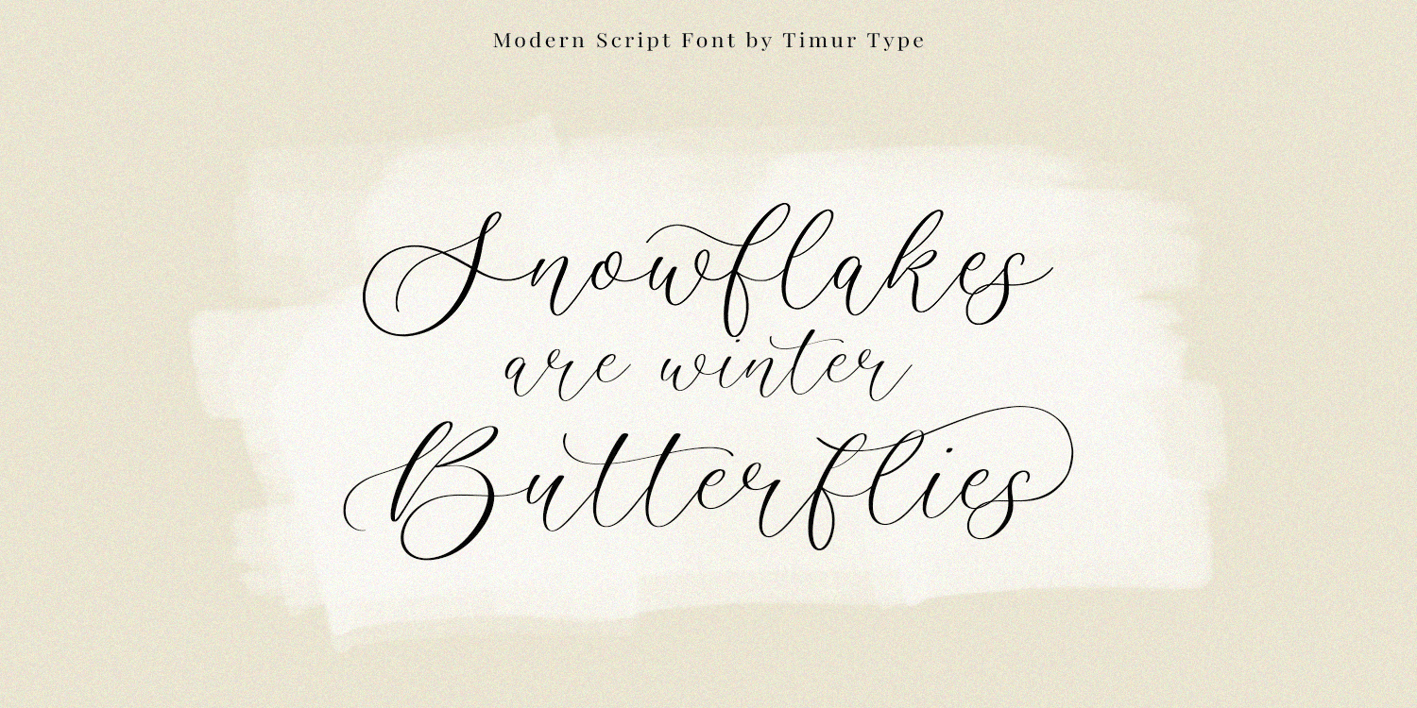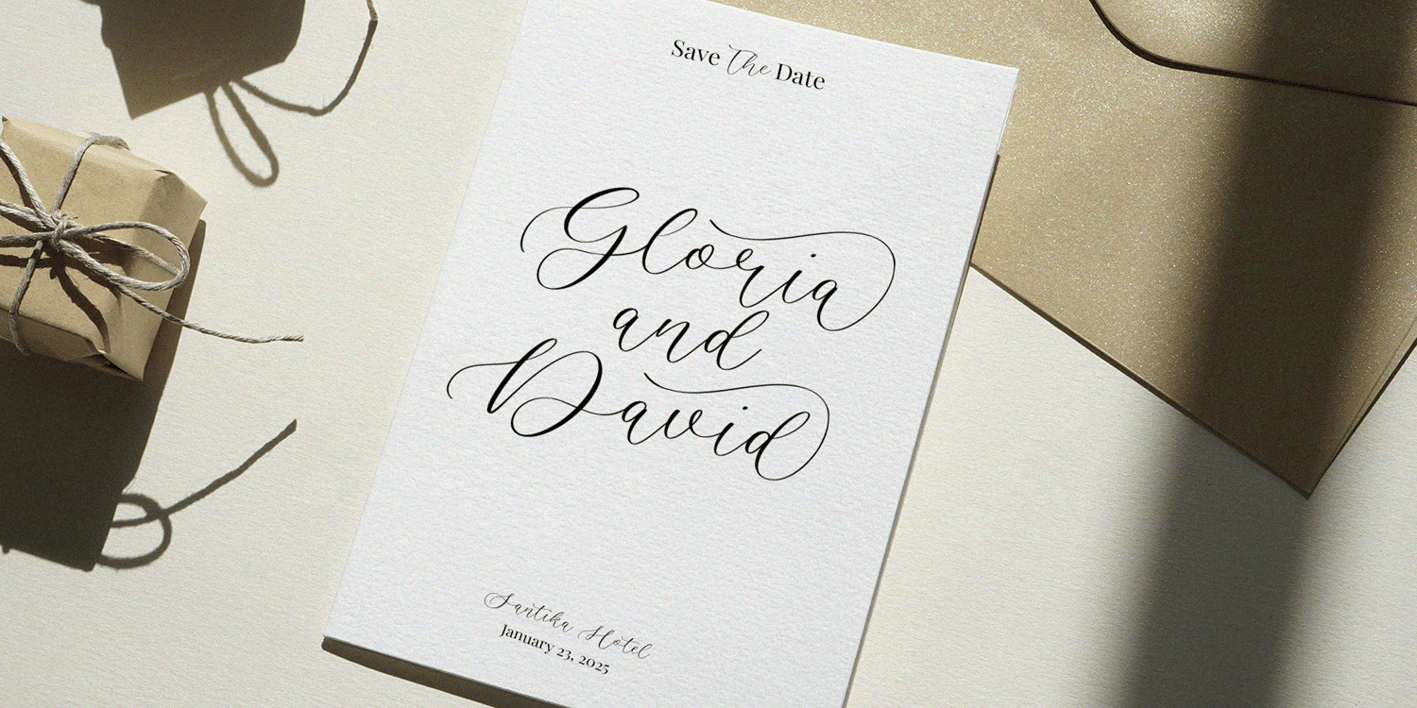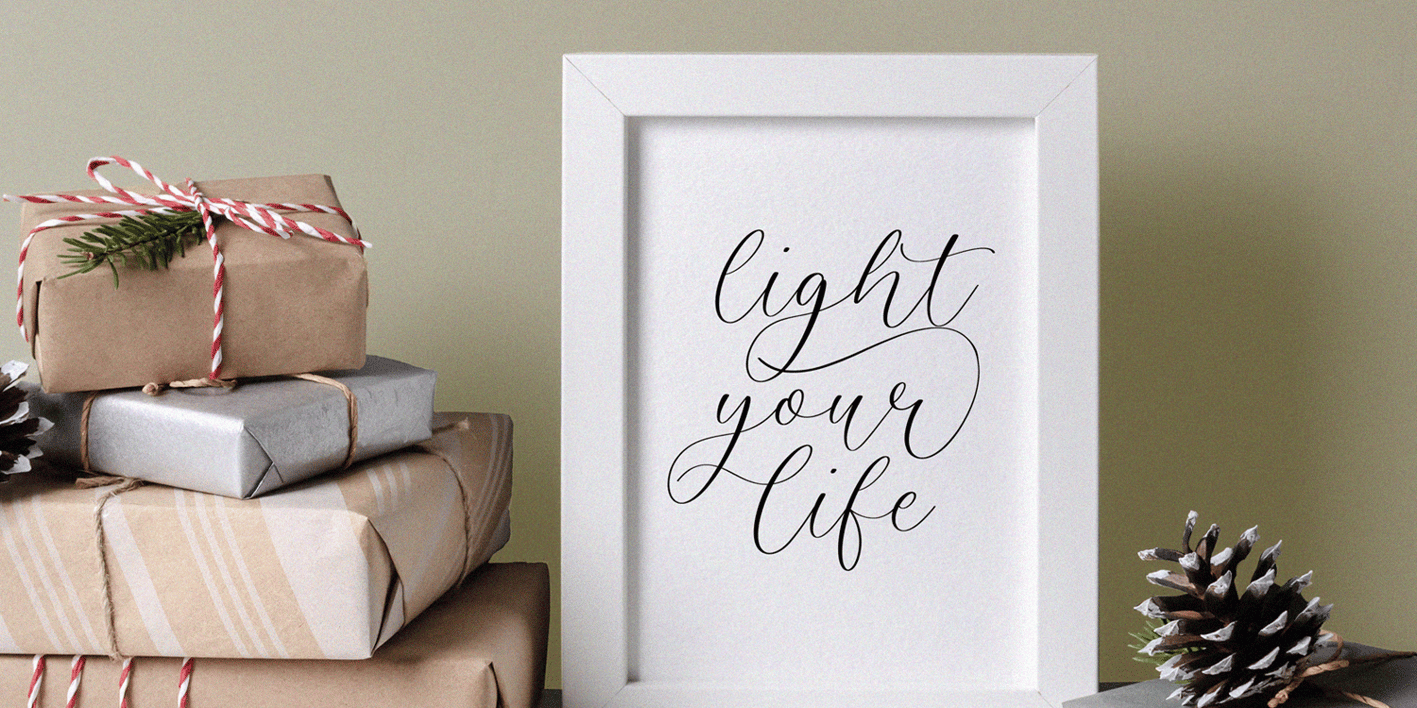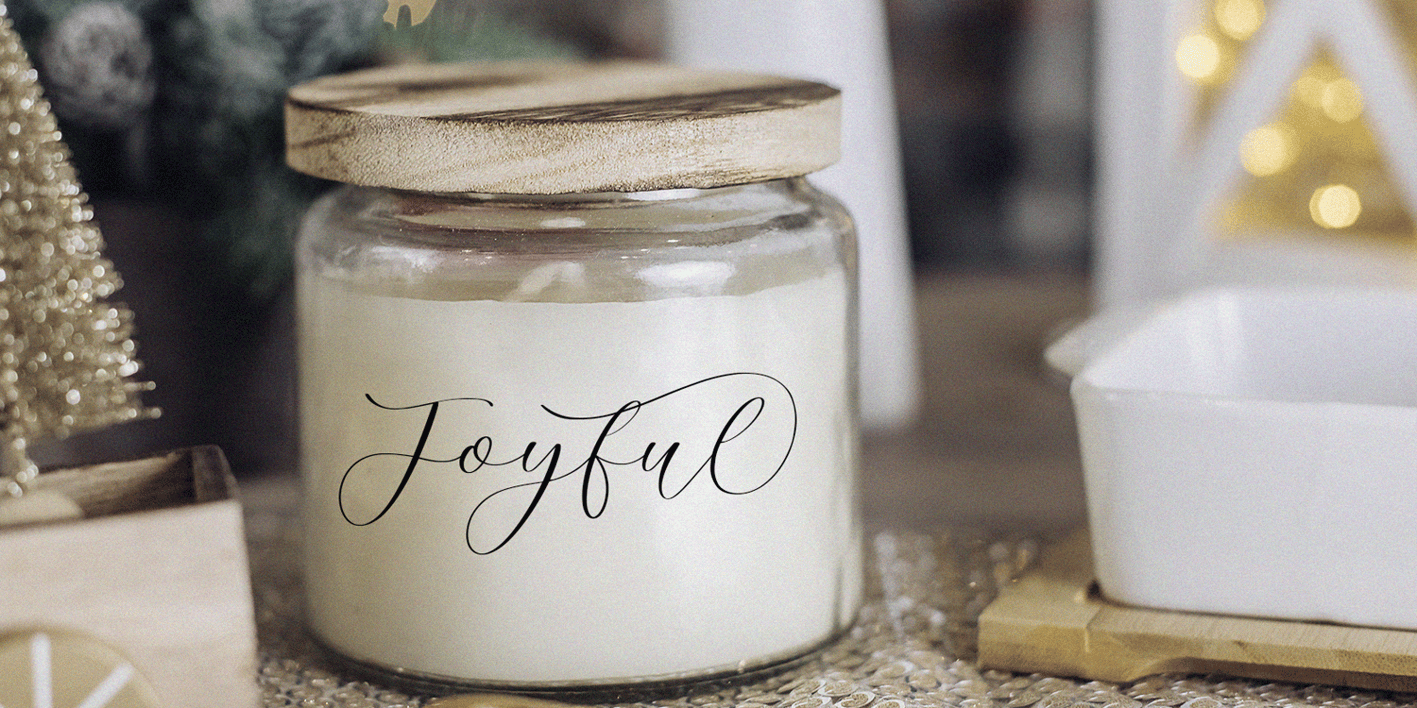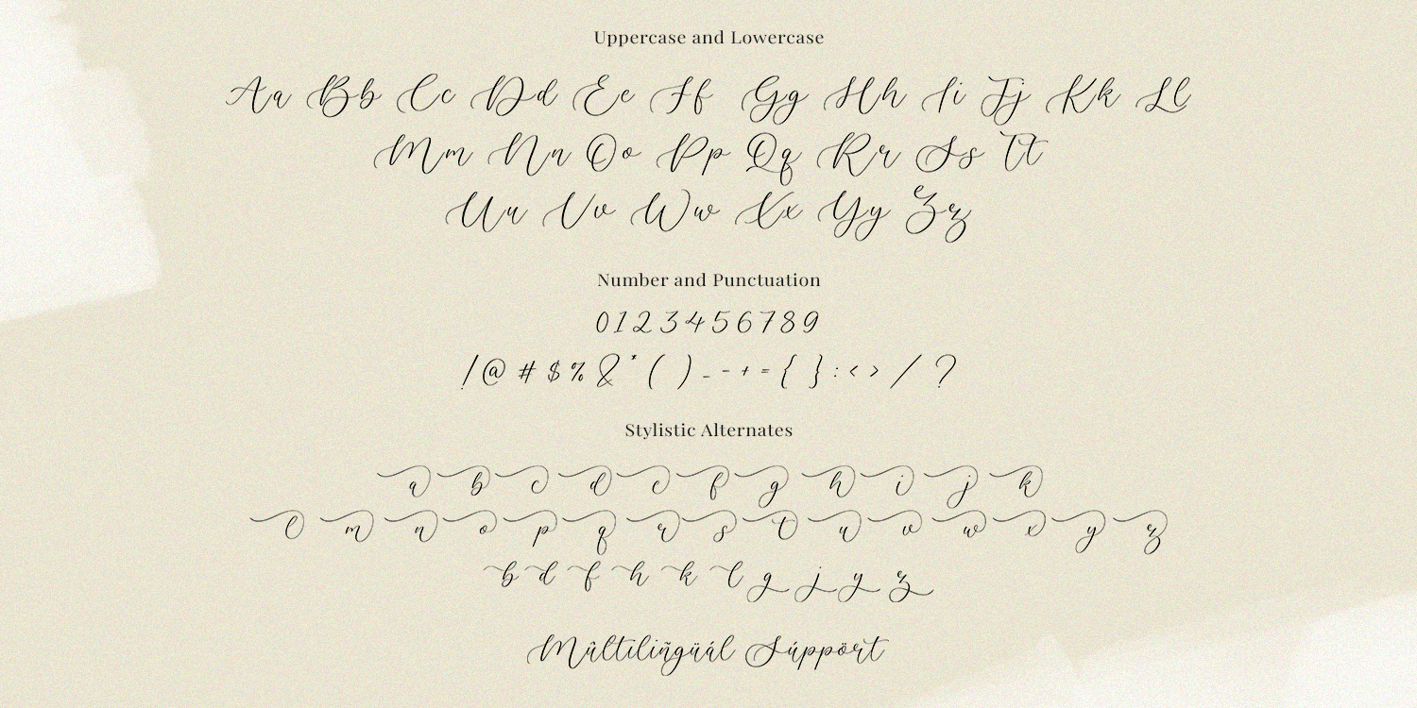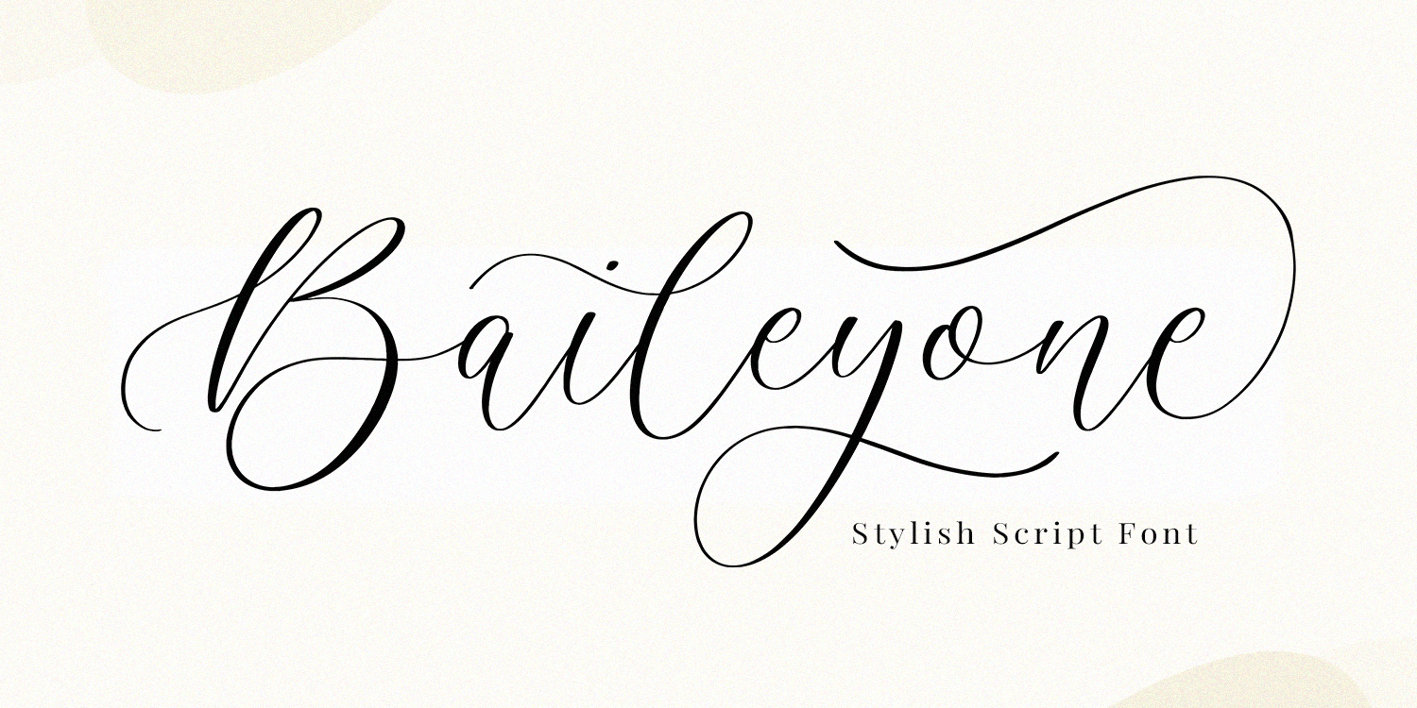
Baileyone Font
Baileyone Font is perfect for traditional Irish pubs, Celtic heritage celebrations, Irish cultural festivals, Gaelic language education materials, Celtic music venues, traditional Irish wedding ceremonies, Highland games promotions, Celtic art exhibitions, Irish heritage tourism campaigns, and authentic Celtic lifestyle brands. This distinctive typeface brings Celtic charm and Irish cultural authenticity to any heritage-focused design project.
Baileyone Font is exciting because it embodies the warm hospitality and rich cultural heritage of Irish traditions, featuring letterforms that evoke the rolling green hills of Ireland and the melodic beauty of Gaelic language and Celtic artistic expression. Its Celtic character instantly conveys cultural authenticity, Irish warmth, and the timeless traditions that have preserved Irish culture across generations of storytelling, music, and community celebration.
Baileyone Font family includes Light, Regular, Medium, and Bold weights with Celtic alternates, Irish flourishes, Gaelic ornamental elements, and traditional symbols that enhance the Celtic aesthetic, providing heritage designers with authentic tools for creating typography that celebrates Irish culture and honors the rich traditions of Celtic civilization and Irish heritage preservation.
Celtic heritage designers appreciate Baileyone Font for its exceptional ability to convey Irish authenticity and Celtic cultural pride through warmly crafted letterforms. The font's traditional character and Irish details create immediate associations with Celtic music, traditional storytelling, and the rich cultural traditions that have made Irish heritage renowned for its contributions to literature, music, and cultural expression worldwide.
The design inspiration behind Baileyone Font draws from traditional Irish manuscripts, Celtic knotwork patterns, and the rich artistic heritage of Irish culture that has preserved Celtic traditions across centuries of cultural preservation and Irish diaspora communities, making it particularly effective for cultural institutions, Irish organizations, and Celtic heritage groups. Cultural teams working on Irish heritage find this font essential for authentic representation.
Whether used for Irish cultural centers, Celtic heritage festivals, or traditional Irish businesses, Baileyone Font delivers the perfect synthesis of Celtic elegance and Irish authenticity. Its heritage appeal and Celtic sophistication make it an indispensable choice for organizations that preserve Irish culture, promote Celtic heritage, and celebrate the warm traditions and rich cultural legacy of Irish civilization and Celtic cultural expression.